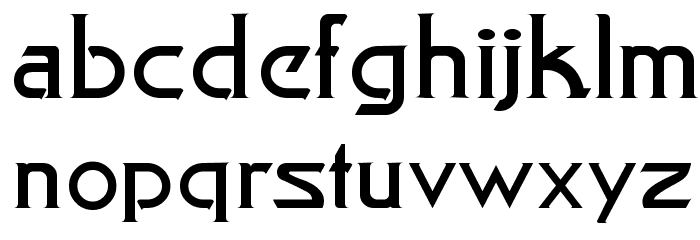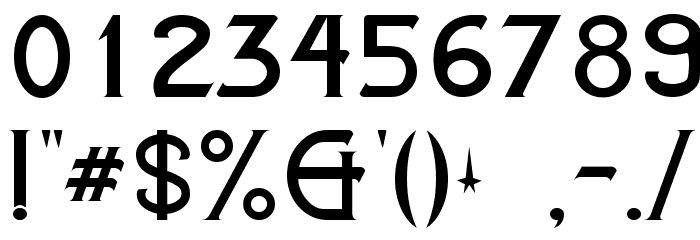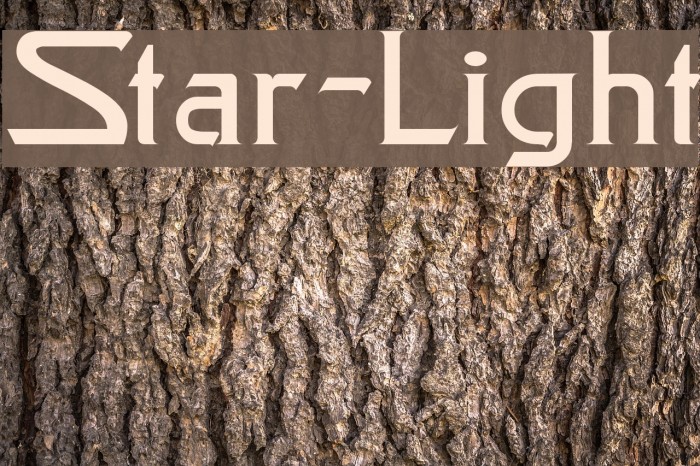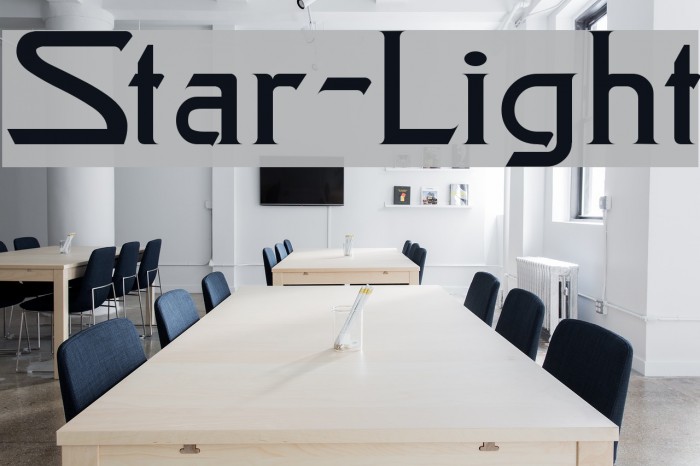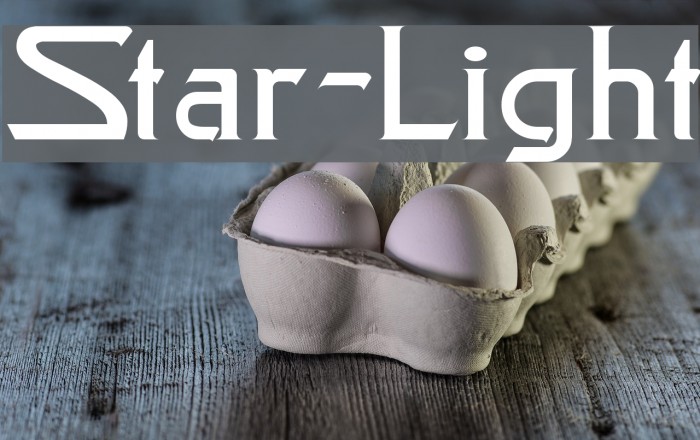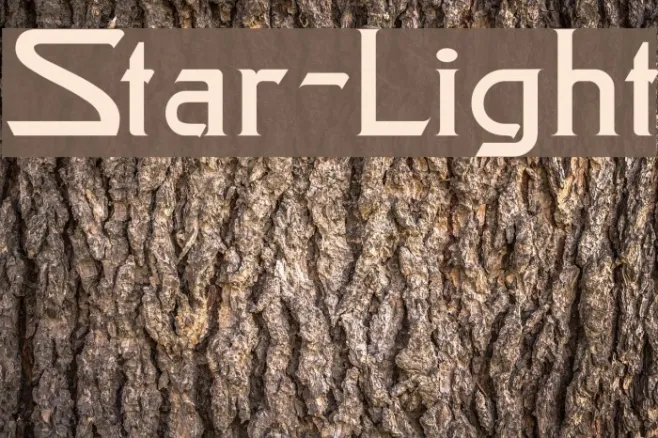
Star-Light Font
This font features a unique and futuristic design with angular and geometric elements. The uppercase letters have a distinct sharpness, while the lowercase letters maintain a consistent style with slight curves. The numbers are bold and clear, making them easily readable. Special characters are creatively designed, adding to the overall aesthetic. The font's modern and sleek appearance makes it suitable for contemporary projects that require a touch of innovation and style.
A futuristic and angular font with geometric elements.
- Proposed Projects: Ideal for sci-fi themed designs, technology branding, modern posters, and innovative product packaging.